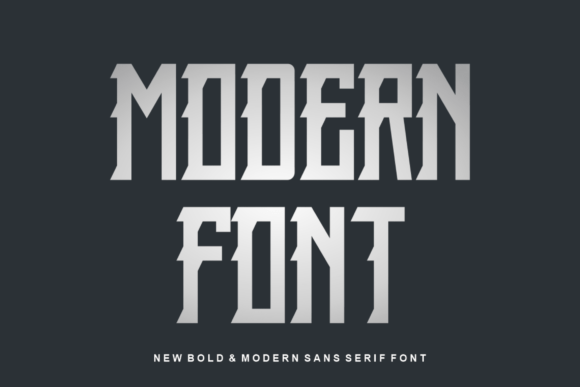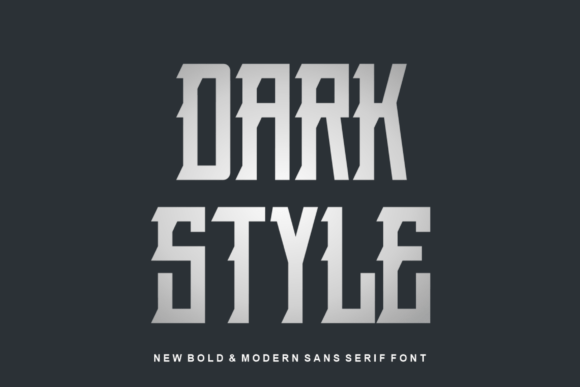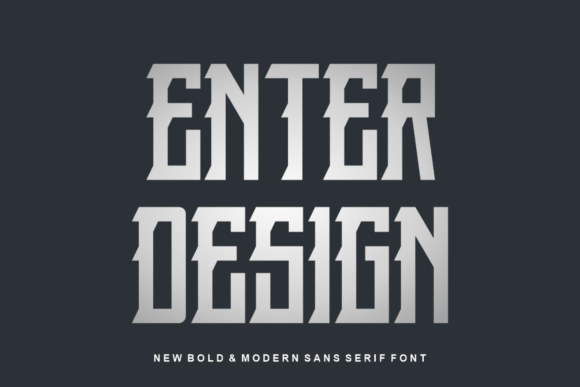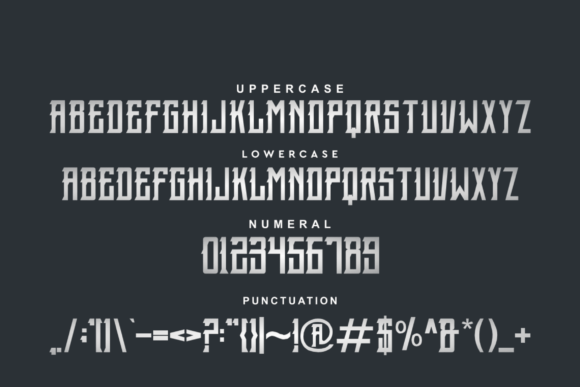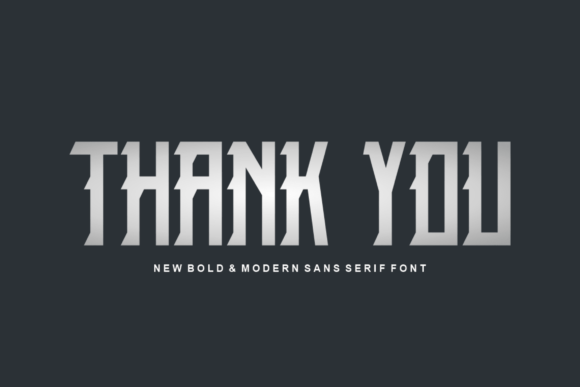
Introduction to Risporen Font
Do you ever find yourself stuck in a creative rut, unable to bring your vision to life? For designers, this is a frustrating experience we’ve all faced at some point. But what if I told you that there’s a secret to unlocking your full creative potential? It starts with the right tools, and that’s where the Risporen Font comes in.
This sleek and modern display font is the perfect addition to any design project. Whether you’re working on a logo, a poster, or a digital campaign, Risporen Font has the ability to elevate your work to the next level. With its clean lines and high-quality design, it’s no wonder that designers are flocking to this versatile font.
Key Features of Risporen Font
- High-quality design resource for creative projects, perfect for various applications.
Honest Review: Risporen Font
As a designer, I’m always on the lookout for high-quality fonts that can elevate my creative projects. Recently, I stumbled upon the Risporen Font, and I must say, it’s a great addition to any design resource collection.
Here’s what I like about the Risporen Font:
- ✨ Unique design style that’s perfect for modern and minimalist designs
- ✨ High-quality glyphs that are clear and easy to read
- ✨ Transparent background, making it easy to use on any design surface
- ⚠️ Limited language support, which might be a concern for designers working on multilingual projects
- ⚠️ Not suitable for projects requiring a large font size, as the glyphs may become pixelated
Overall, I’m impressed with the Risporen Font. It’s a great free download that’s perfect for designers looking for a unique and high-quality font for their creative projects. With a little creativity, the Risporen Font can be a valuable addition to any design resource collection.
Tips for Getting the Most Out of Risporen Font
Experiment with different font sizes and styles to create a visually appealing design. Use Risporen Font in combination with other design elements, such as images and graphics, to create a cohesive look.
Risporen Font is ideal for creating titles, headings, and body text in various design projects, including brochures, posters, and websites. Its transparent background makes it perfect for overlaying text on images, creating a clean and modern look.